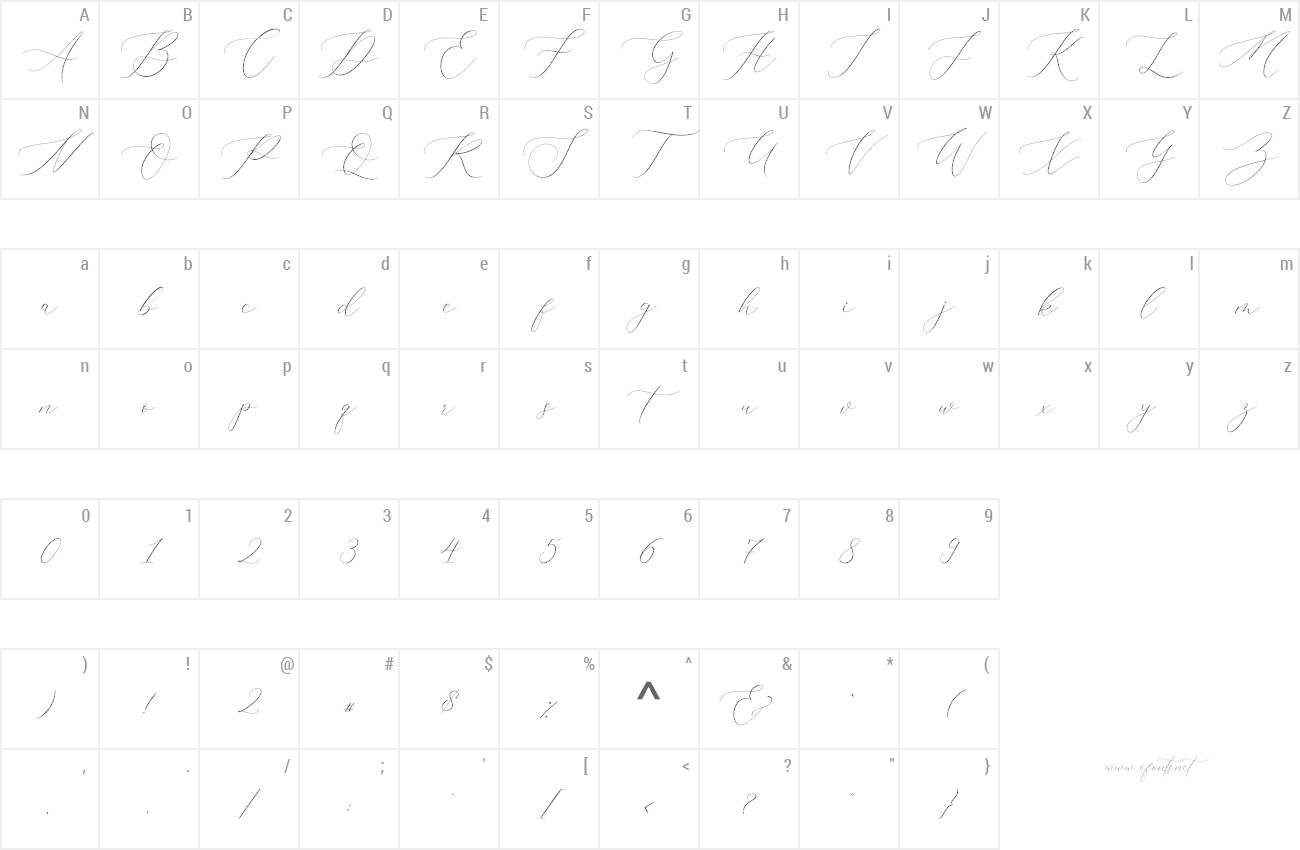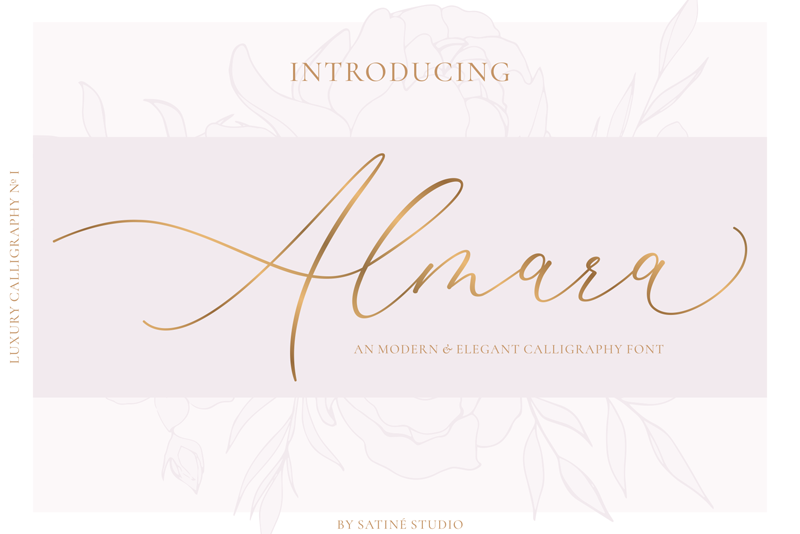
Introducing Almara, a new luxury & elegant calligraphy font. Almara is perfect for wedding invitations & cards, blogs and websites, branding design, packaging design, wine labeling, and more. Almara includes full set of upper and lowercase letters, numerals & punctuations, ligatures, swash and alternate characters, as well as multilingual support. What does it include? Almara OTF Almara TTF This demo font is for PERSONAL USE ONLY. NO COMMERCIAL USE! Here is the link to purchase COMMERCIAL LICENSE: https://fontbundles.net/satine/382043-almara#gtmPos=1>mList=15 But any donation are very appreciated: https://www.paypal.me/satin85 If you have any questions, contact me via email: satin.and.paper@gmail.com Thank you! |